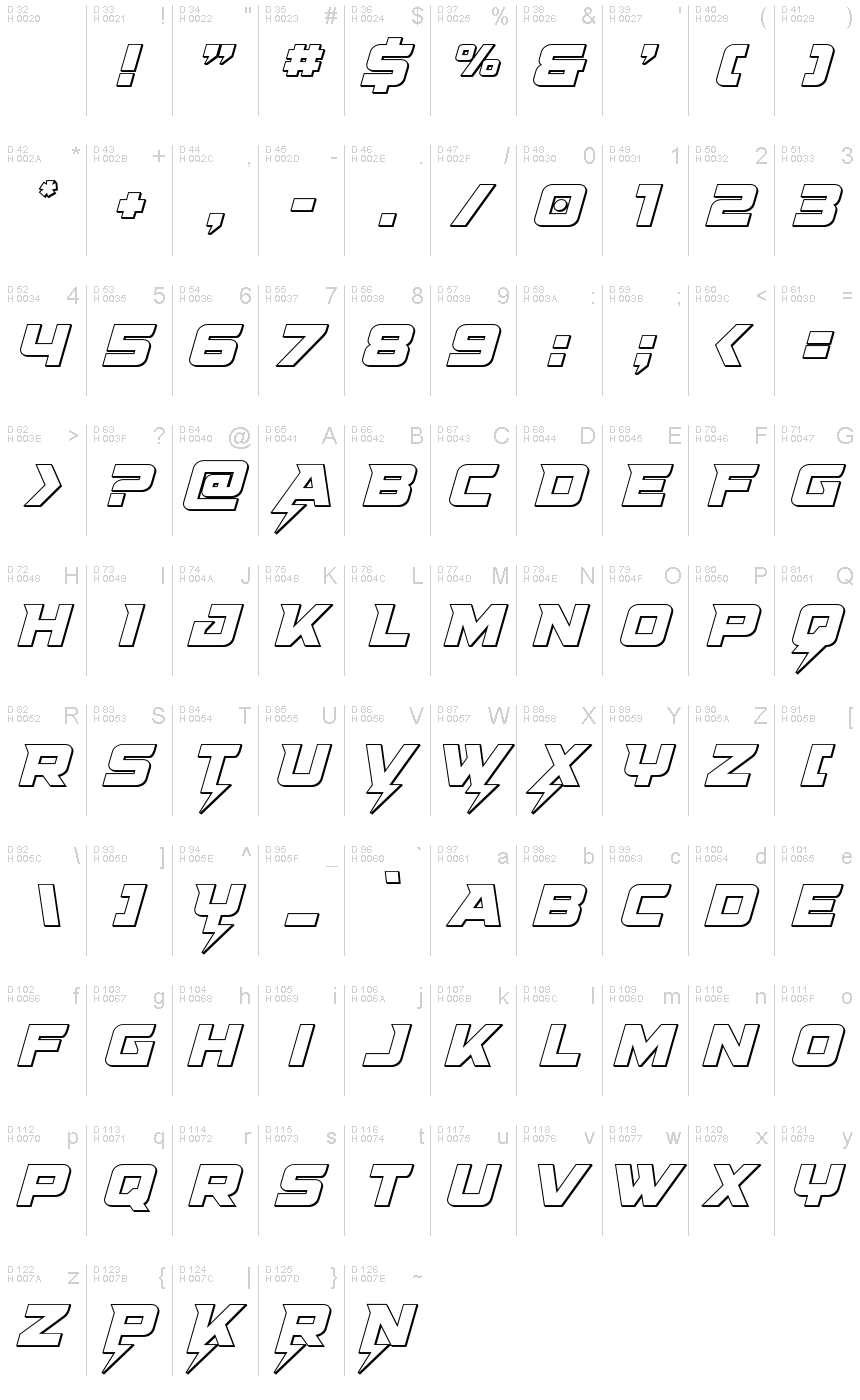
Supercharge 3D
Supercharge 3D, from the Supercharge family, is a display font that packs a visual punch with its bold, expanded width and dynamic 3D techno style. Designed by Iconian Fonts, this typeface is engineered to capture attention and energize any design. Its assertive lines and shadowed depth create a sense of movement, making it particularly well-suited for projects that require a futuristic or high-energy feel.
The robust character of Supercharge 3D lends itself to creative endeavors ranging from eye-catching headlines to immersive gaming graphics. It stands out in branding materials and promotional content where a strong impression is paramount. Whether used in digital media or print, this font's aesthetic appeal lies in its ability to bring text to life with its three-dimensional illusion and techno vibe. Supercharge your designs with this striking typeface that promises immediate impact and lasting memorability.